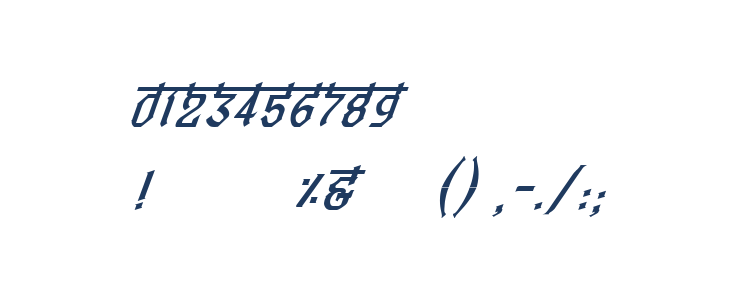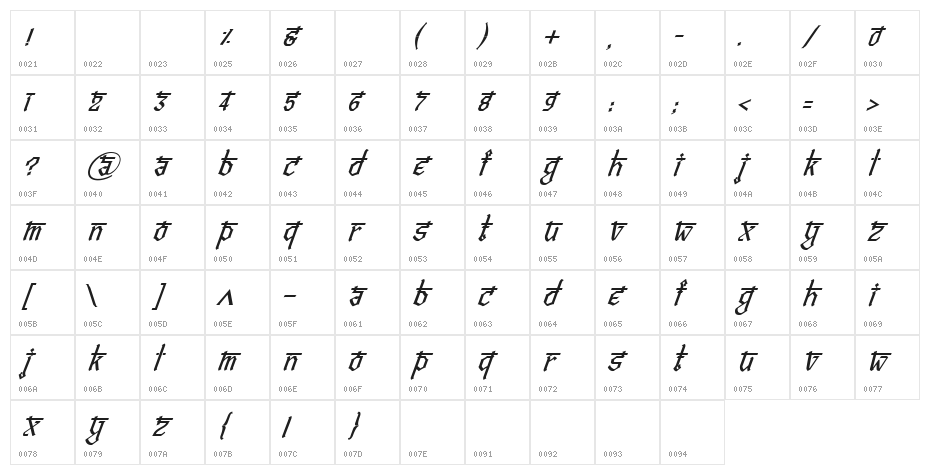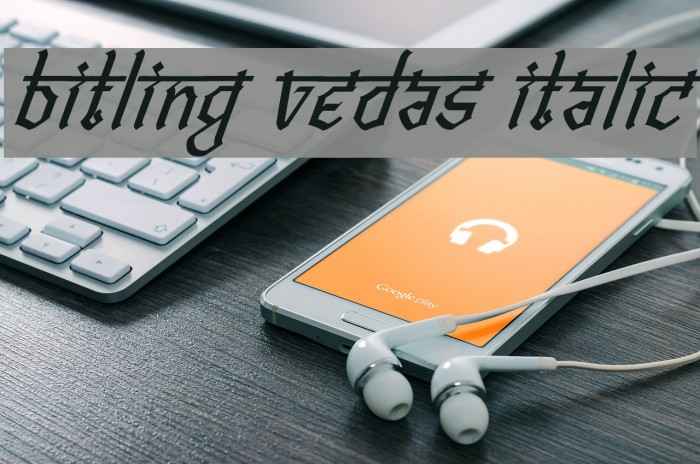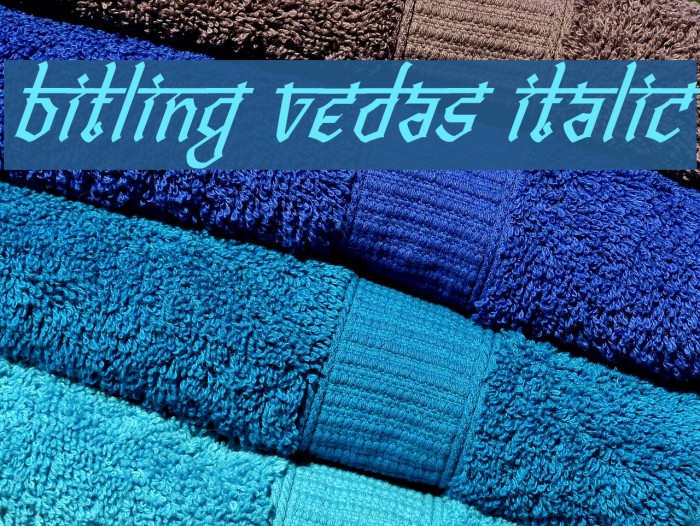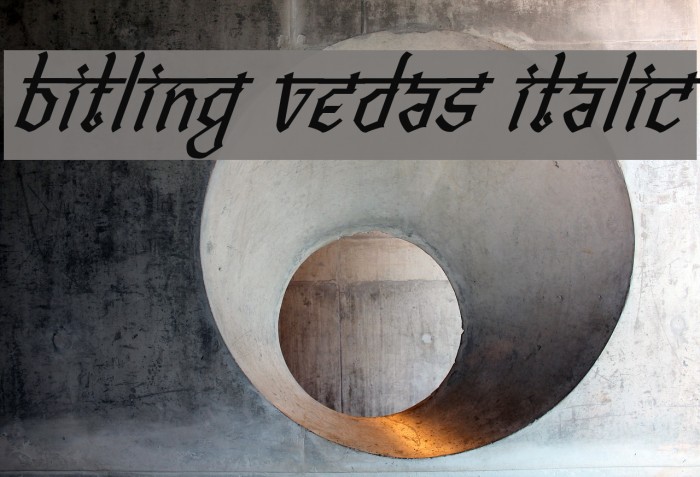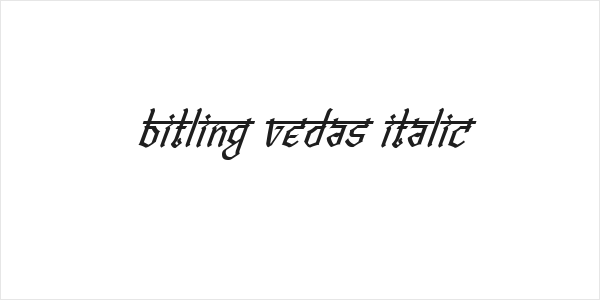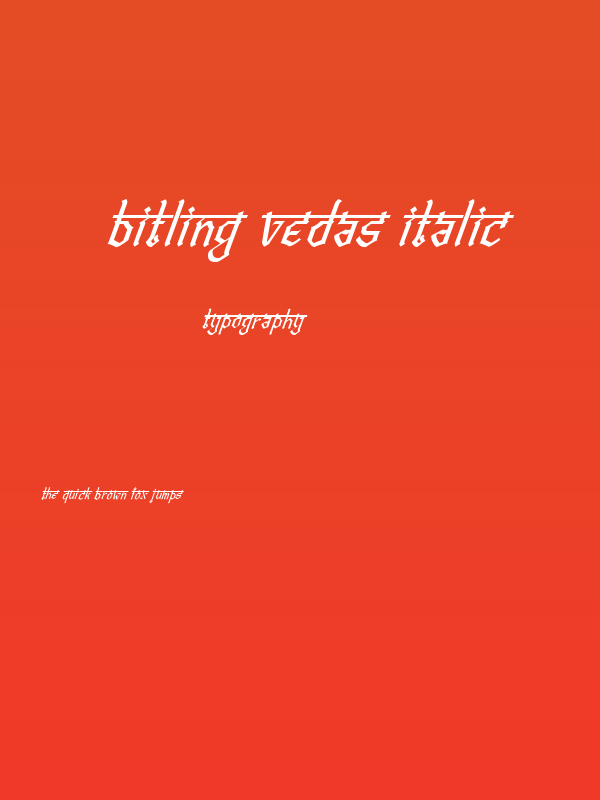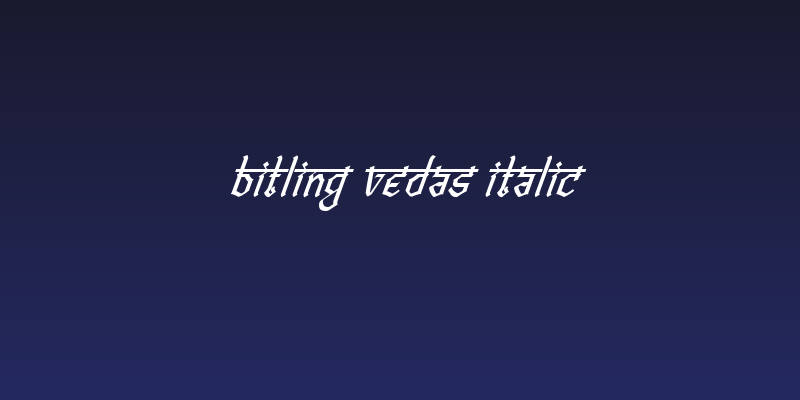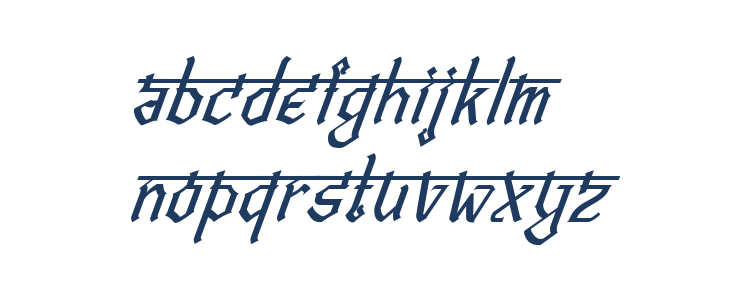
Bitling vedas Italic Font
Bitling vedas Italic Description
This font exhibits a dynamic and energetic style, characterized by its italicized, angular letterforms. The strokes are sharp and pointed, giving it a distinct, edgy appearance. The characters are slightly condensed, enhancing its modern and sleek look. The uppercase and lowercase letters maintain a consistent slant, contributing to its cohesive design. The numerals and special characters follow the same stylistic cues, ensuring uniformity across all glyphs. This font's unique style makes it suitable for projects that require a bold and contemporary aesthetic.
| Proposed Projects | Ideal for branding, posters, and editorial design where a bold, modern statement is needed. |